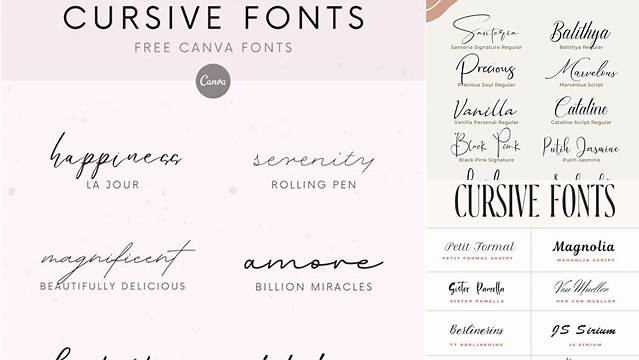
Free Cursive Fonts: Your Guide To Stunning Designs
Hey guys! Are you on the hunt for some seriously cool cursive fonts? You know, the kind that adds a touch of elegance, personality, and flair to your designs? Well, you're in the right place! We're diving headfirst into the world of cursive font freepik, exploring everything from where to find these beauties for free to how to use them effectively. Let's get started and make your designs pop!
Finding the Perfect Free Cursive Fonts on Freepik
First things first, let's talk about the holy grail: finding free cursive fonts on Freepik. Freepik is an amazing resource for designers, offering a massive library of graphic resources, including a fantastic selection of fonts. When you search for cursive font freepik, you'll be presented with a wide array of options. But how do you choose the best one? Consider the style you're going for. Are you aiming for a classic, elegant look, or something more modern and playful? Think about the overall tone of your project. A wedding invitation might call for a delicate, flowing script, while a logo for a modern brand could benefit from a bolder, more stylized cursive font. Don't be afraid to experiment! Download a few different fonts and try them out with your designs. The great thing about Freepik is that most of their free fonts are available for commercial use, but always double-check the license to be absolutely sure. Look for fonts that have clear, readable letterforms. While the beauty of cursive lies in its unique flourishes and connections, legibility is still key. A font that's difficult to read will defeat the purpose, so make sure the characters are easily distinguishable.
The Elegance of Calligraphy Cursive Fonts
Calligraphy cursive fonts bring a sense of sophistication and artistry to any design. They mimic the hand-lettered look of traditional calligraphy, with flowing strokes and graceful curves. If you're looking to add a touch of class or a vintage vibe to your project, this is the way to go. When working with calligraphy cursive fonts, think about the context. These fonts often work best for headings, titles, and short phrases. Use them sparingly to avoid overwhelming the viewer. Pair them with a clean, simple sans-serif font for body text to create a balanced look. Don't be afraid to play with the font size and kerning (the space between letters) to achieve the perfect balance. Sometimes, a slight adjustment can make a huge difference in the overall appearance. Many calligraphy fonts include special characters and ligatures (where two or more letters are combined into a single glyph) to enhance the authentic calligraphy feel. Take advantage of these features to create a truly unique and stunning design. Calligraphy cursive fonts are perfect for wedding invitations, greeting cards, and anything that needs a touch of refinement. Consider using them for logos, branding materials, and even website headers. The key is to choose a font that complements your overall aesthetic and conveys the message you want to communicate. Think about the paper you're printing on or the background of your website. The color and texture of the background can greatly affect the way a calligraphy font appears. Experiment with different colors and textures to find the perfect combination. Remember that the goal is to create a visually appealing and easy-to-read design that reflects your personal style or brand identity. Also, using this type of font gives an impression that you have a sophisticated, or elite side, so make sure this fits the goals of your company.
Modern Cursive Fonts: A Contemporary Twist
Modern cursive fonts offer a fresh take on the traditional script style. They often feature clean lines, geometric shapes, and a more contemporary feel. If you're looking to give your design a modern edge, this is the perfect place to look! When selecting a modern cursive font, consider how it will work with the rest of your design elements. Pair it with a minimalist color palette and clean, geometric shapes to create a sleek and sophisticated look. Or, for a more playful vibe, try pairing it with bright colors and bold graphics. The versatility of modern cursive fonts makes them ideal for a wide range of projects. Use them for logos, website headers, social media graphics, and even packaging design. Look for fonts that offer a range of weights and styles. This will allow you to create a more dynamic and visually interesting design. Modern cursive fonts are often more versatile than traditional calligraphy fonts because they offer more design flexibility. They can be easily integrated into various types of projects, from websites to print materials. Make sure to check the font's license before using it for commercial purposes, as different fonts have different usage rights. Experiment with different text effects, such as shadows, outlines, and gradients, to add depth and dimension to your font. These effects can make your font stand out and capture the viewer's attention. Also, you can get some special characters and symbols that can make it stand out even more. Modern cursive fonts are all about pushing boundaries and experimenting with new styles. Consider using them for projects that require a bold, innovative approach. The flexibility of these fonts makes them a great choice for creative projects that require a special touch.
Choosing the Right Cursive Font for Your Project
Selecting the right cursive font is essential for creating a design that effectively communicates your message and appeals to your target audience. Start by defining the purpose of your project. Are you creating a logo, a website header, or a greeting card? The purpose of your project will determine the type of font that is most appropriate. Consider the tone and style you want to convey. Do you want a classic, elegant look, or something more modern and playful? Your choice of font should reflect the tone and style of your project. Once you have a good idea of your project's purpose and tone, start browsing through different cursive fonts on Freepik and other websites. Take note of the fonts that catch your eye and match the overall aesthetic of your design. Ensure that the font is legible. Cursive fonts can be beautiful, but if they're difficult to read, they won't be effective. Choose a font that is clear and easy to understand, even at smaller sizes. Pair your cursive font with a complementary font. A well-chosen pairing can enhance the overall look of your design. Consider using a clean, sans-serif font for body text to create a balanced look. Don't be afraid to experiment! Try out different fonts and combinations to see what works best for your project. The key is to find a font that looks great and reflects the message you want to communicate. When choosing the right cursive font, always consider the context of your project. Make sure that the font complements your overall design and doesn't clash with other elements, such as images, colors, and layout. Think about the platform where your design will be displayed. A font that looks great on a website may not look as good in print. Also, remember to check the license of any font you download to ensure that you're authorized to use it for your intended purposes. Don't be afraid to explore different styles and experiment with various options until you find the perfect font for your needs. The perfect cursive font will transform your project from something ordinary into something extraordinary.
Pairing Cursive Fonts with Other Fonts
Pairing cursive fonts with other fonts is an art form in itself. The right combination can make your design sing, while the wrong one can clash and detract from your message. When pairing fonts, consider the overall style of your design. If you're going for a classic and elegant look, pair your cursive font with a serif font, such as a Times New Roman or a Garamond. The combination of a flowing cursive font and a classic serif font creates a timeless look that will never go out of style. For a more modern aesthetic, pair your cursive font with a clean, sans-serif font, such as Helvetica or Open Sans. The contrast between the elegant cursive and the clean sans-serif can create a visually appealing and contemporary design. Think about the weight and size of the fonts you are using. A delicate cursive font might get lost if paired with a bold, heavy sans-serif font. Similarly, a heavy cursive font might overpower a light serif font. The key is to achieve balance and harmony. When choosing fonts, experiment with different combinations. Download a few fonts that you like and try pairing them to see what works best. Don't be afraid to think outside the box. Sometimes the most unexpected combinations can lead to the most stunning results. Choose a font that complements the design elements of your project. If you're creating a website header, make sure the fonts work well with the website's background, images, and other design elements. Consider the purpose of your project. For example, if you're creating a logo, choose fonts that reflect the personality of your brand. Font pairing is a skill that develops over time. The more you practice, the better you'll become at choosing the right combinations. Study the designs of other designers and try to understand how they have paired fonts to create effective designs. Also, always be aware of what you want to convey, so you have a better idea of what fonts and styles go well together.
Cursive Fonts for Logos: Making a Statement
Cursive fonts can be incredibly effective for logos, adding a touch of personality, sophistication, and elegance. However, it's essential to choose the right cursive font and use it wisely. When using a cursive font for a logo, consider the overall brand identity. Does the font reflect the personality and values of your brand? A flowing, elegant cursive font might be perfect for a luxury brand, while a more playful cursive font might be suitable for a children's brand. Ensure that the font is legible, even at smaller sizes. A logo is meant to be instantly recognizable, so the font must be easily readable. Avoid overly ornate or difficult-to-read cursive fonts, as they may be lost on smaller applications. Ensure the font complements other design elements in your logo. The color palette, the shapes, and other design elements should work in harmony with the font to create a cohesive and visually appealing logo. Use a cursive font as the primary font in your logo or use it in combination with another font. If you're using it as the primary font, make sure the font is easy to read and represents your brand's voice. Consider how the logo will be used. Will it be used on websites, social media, or printed materials? The font you choose should be versatile enough to work well in all these applications. A good cursive font for a logo should be memorable. Choose a font that will stand out and be easily recognizable, but not so unique that it will be hard to understand. The key is to find the perfect balance between aesthetics and function. Be careful with the details of your logo design. Ensure that the font is carefully spaced and that the kerning (the space between letters) is adjusted to create a visually appealing logo. Think about the context of the logo, the font, and how you want the logo to affect the public. Use a font that will catch attention and represent the brand's values. Choosing the right font is crucial, and you must choose the font that is right for your brand.
Free Cursive Fonts for Wedding Invitations: Creating Elegant Designs
Wedding invitations are a perfect application for cursive fonts, as they add a touch of elegance, romance, and sophistication to your designs. When selecting a cursive font for your wedding invitations, think about the overall style of the wedding. Is it a classic, traditional wedding, or something more modern and unique? Choose a font that reflects the theme of your wedding. A delicate, flowing cursive font might be perfect for a traditional wedding, while a bolder, more contemporary font might be more suitable for a modern wedding. Ensure that the font is legible, even at smaller sizes. Wedding invitations often contain a lot of information, so the font must be easy to read. Avoid fonts that are too ornate or difficult to understand. Consider pairing your cursive font with a complementary font. A well-chosen font pairing can enhance the overall look of your invitation. Consider using a clean serif or sans-serif font for the body text to create a balanced look. Choose a font that is versatile enough to work well on various materials. Wedding invitations can be printed on a variety of paper types, so the font must look good on different backgrounds. When choosing a cursive font for wedding invitations, take your time and experiment with different options. Download a few fonts that you like and try them out with your design to see what works best. Don't be afraid to think outside the box. The perfect font will create invitations that look unique and sophisticated. Also, ensure the font complements the images and other design elements. The best way to decide is by trying and testing different options.
Cursive Fonts for Social Media Graphics: Making Your Posts Stand Out
Using cursive fonts in your social media graphics can help your posts stand out from the crowd, adding a touch of personality and style. Social media platforms such as Instagram, Facebook, and Pinterest allow you to create visually appealing content, and a well-chosen cursive font can significantly enhance your graphics. Choose a cursive font that reflects your brand's personality. Are you a playful brand, or are you trying to portray a sense of elegance? The font you choose should align with your brand's voice and values. Ensure the font is legible, even at smaller sizes. Social media graphics are often viewed on mobile devices, so it's important that your font is easy to read. Avoid ornate fonts that might be difficult to read on smaller screens. Consider pairing your cursive font with a complementary font. A well-chosen font pairing can enhance the overall look of your graphics. You might use a clean sans-serif font for the body text to create a balanced look. Make sure the font is versatile enough to work well with various backgrounds and images. The font you choose should look great with your photos and other graphic elements. To use cursive fonts for social media, experiment with different options. Test out different fonts and combinations to see what works best for your specific needs. Also, make sure you are following the social media design rules. Always ensure that your graphics are up to the standards of the specific platform. Try different layouts and design elements to find the perfect font that creates the graphics that are in tune with your brand's tone and voice. Consider the platform you're using. Each social media platform has its own unique characteristics, so the font you choose should be appropriate for the platform. Also, consider your target audience. The font you use should appeal to your target audience and be relevant to their interests. Remember that on social media you only have a few seconds to get their attention, so always choose the fonts that reflect what you are looking for.
Conclusion: Unleashing the Power of Cursive Fonts
So, there you have it, guys! We've taken a deep dive into the world of cursive fonts, from finding them for free on Freepik to mastering the art of pairing them with other fonts and using them in various design contexts. As we wrap up, remember that cursive fonts are much more than just pretty letters. They are a powerful tool for expressing your brand's personality, conveying your message, and making your designs stand out from the crowd. Remember to choose your fonts carefully, always considering legibility, context, and your target audience. Embrace experimentation and don't be afraid to try new things. Use the tips and techniques we've discussed to unlock the full potential of cursive fonts and elevate your designs. Whether you're creating logos, wedding invitations, social media graphics, or anything in between, the right cursive font can make all the difference. The use of cursive fonts will help you create something unique. Be creative and enjoy the process. Keep creating and experimenting, and you'll be amazed by what you can achieve. Now go out there, download some amazing free cursive fonts, and start creating some awesome designs!